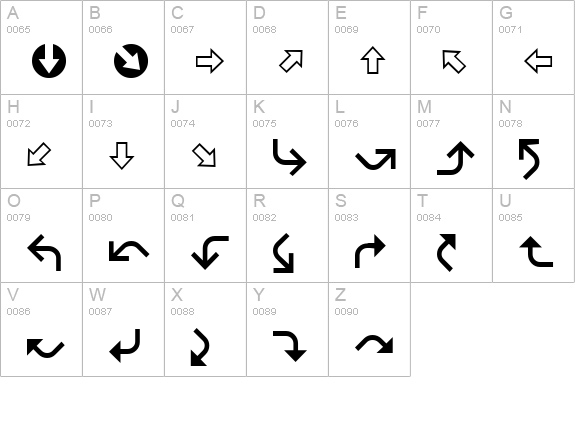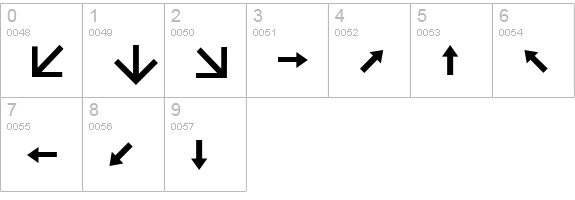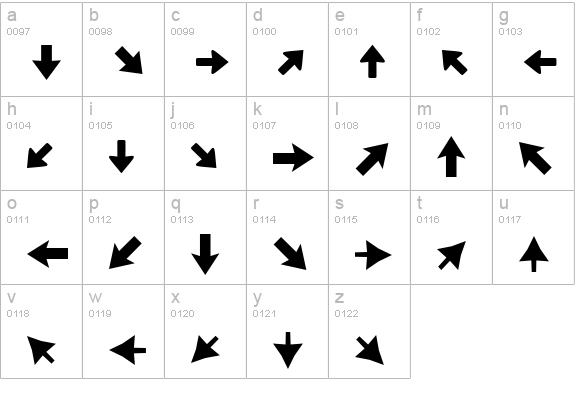
XIngyArrowsBetween Font Details
XIngyArrowsBetween font is a stunning and versatile typeface that combines elegance with modern design elements. Its unique arrow-inspired characters add a touch of creativity and sophistication to any project. Perfect for headings, logos, and branding materials, this font is sure to make a statement. What sets XIngyArrowsBetween font apart is not only its visual appeal but also its user-friendliness and readability. Whether used in print or digital media, this font shines in various contexts, making it a must-have for designers and creatives alike. The best part? XIngyArrowsBetween font is available for free download at FontsMarket.com. Now you can elevate your designs without breaking the bank. Don't miss out on the opportunity to add this dynamic font to your collection and bring your creative vision to life.